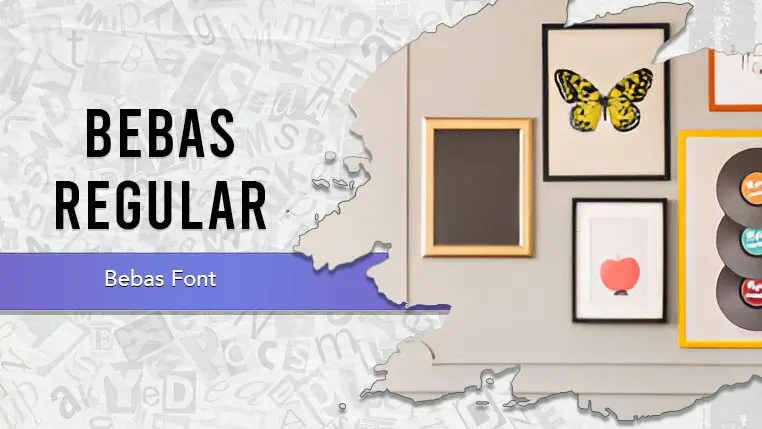
The Bebas font family may be ideal for you if you enjoy working on an artistic design project. The lively, expressive look of this typeface, which was created by Dharma Type, makes it ideal for Posters and Banners, Film and Entertainment and Sports-related Design.ts strong presence makes it perfect for grabbing attention in posters, advertisements, website headers, and editorial layouts. and other light-hearted visual projects.
Regular are the one primary font styles of the Bebas font family. You may build dynamic, visually appealing text layouts with the distinct flair that each style offers. With crisp, readable lines and a relaxed tone.